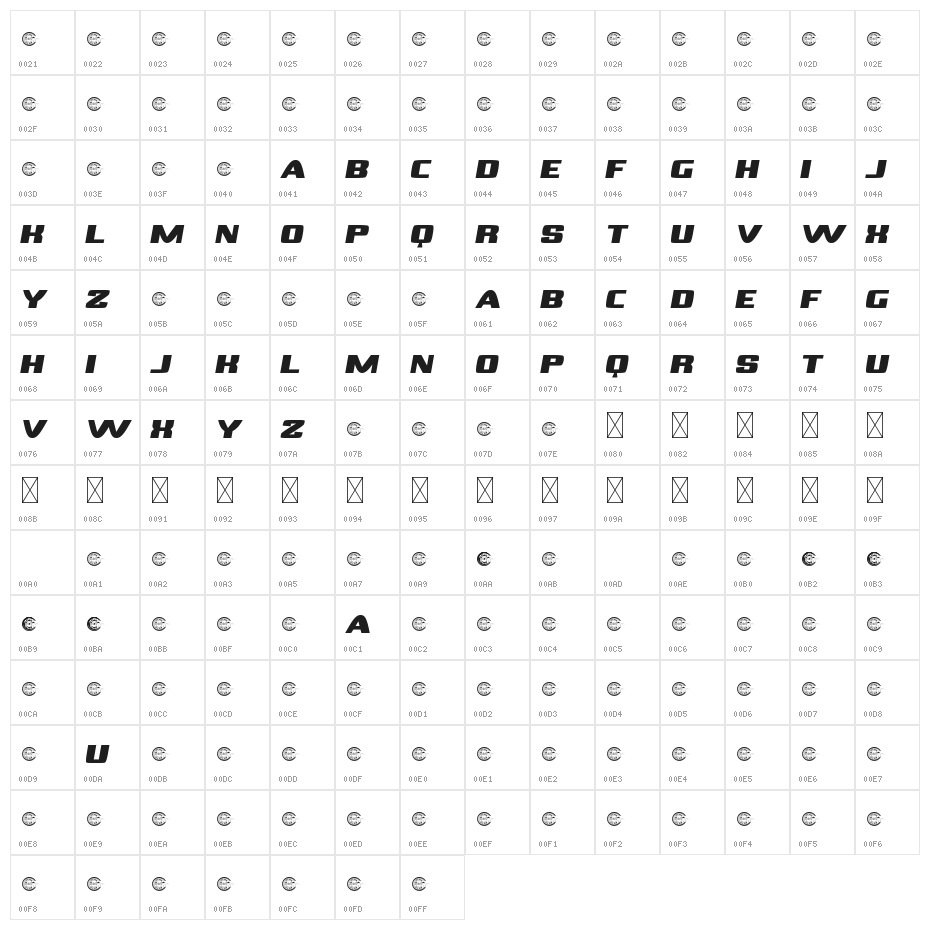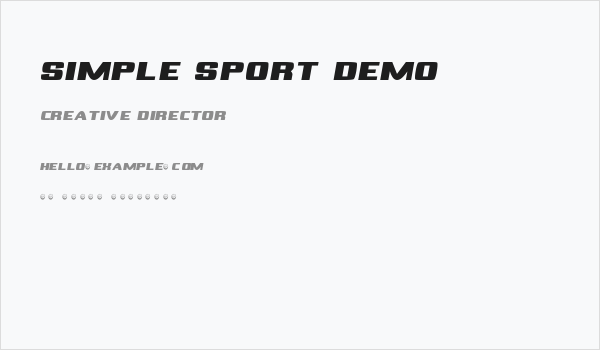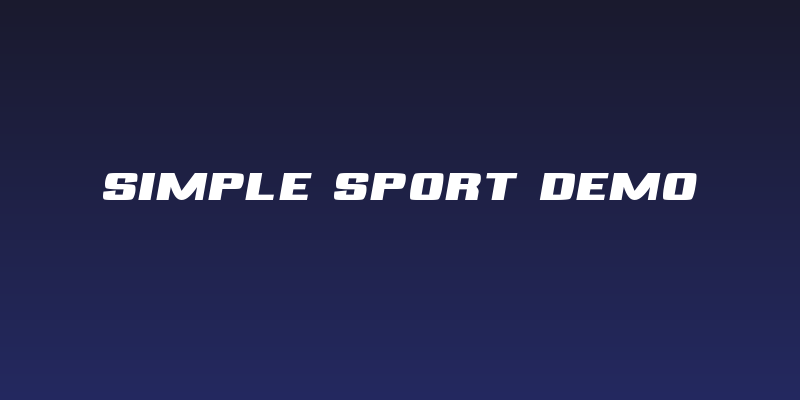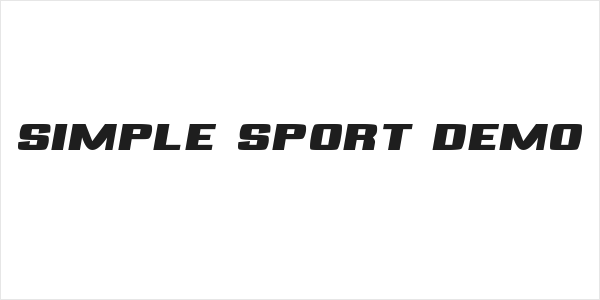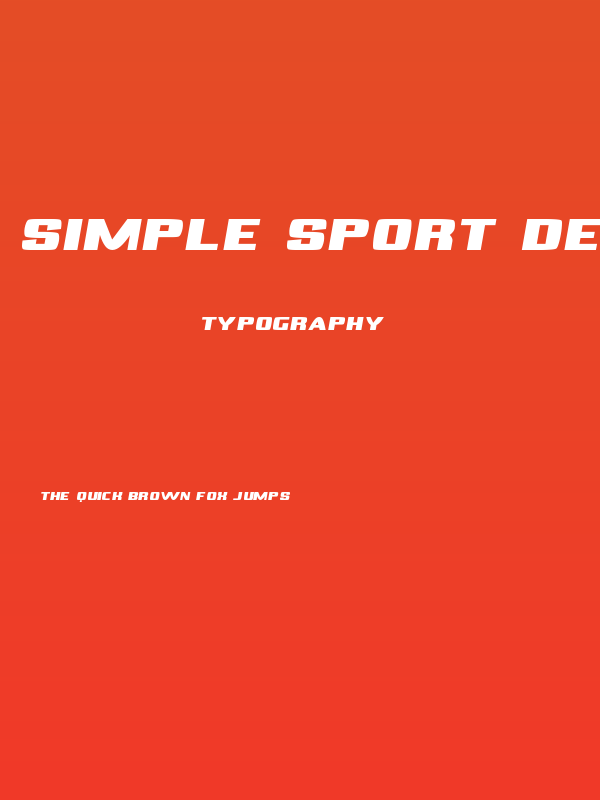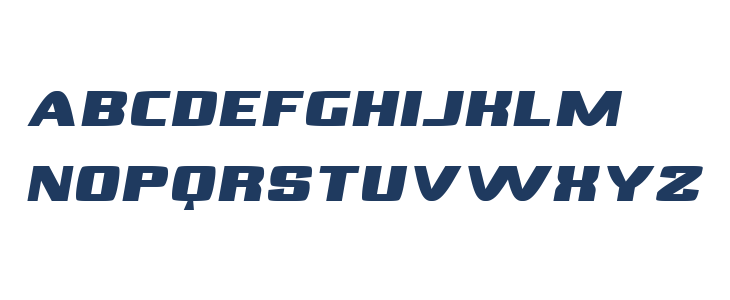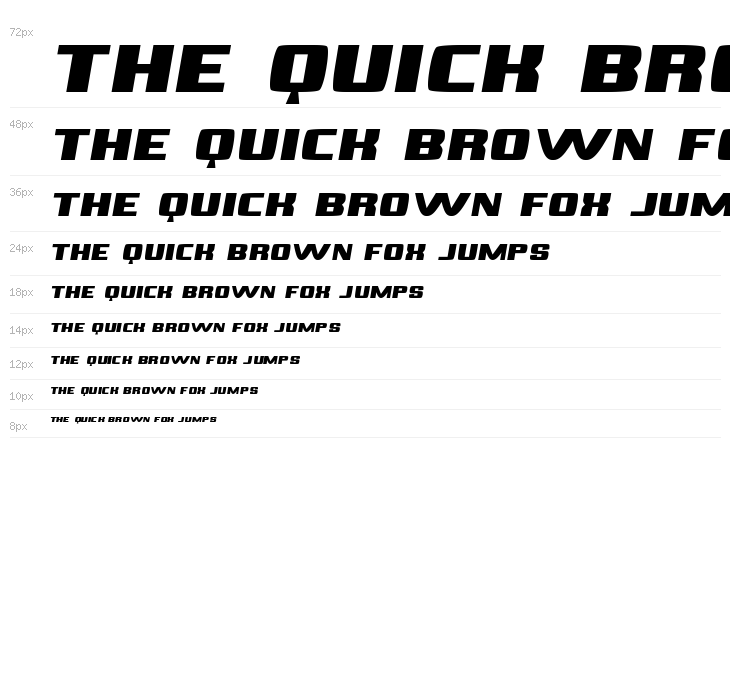
Simple Sport Demo Font
Simple Sport Demo Description
Bold, italic, sans-serif display font with a strong, dynamic appearance.
| Overall Style | Modern, Dynamic |